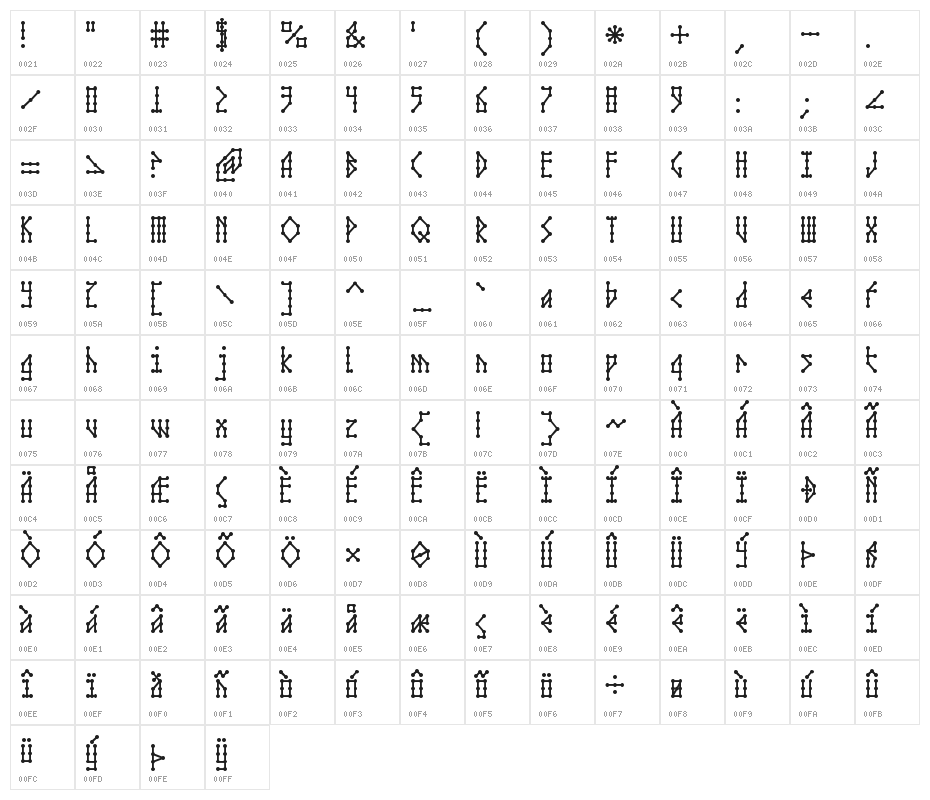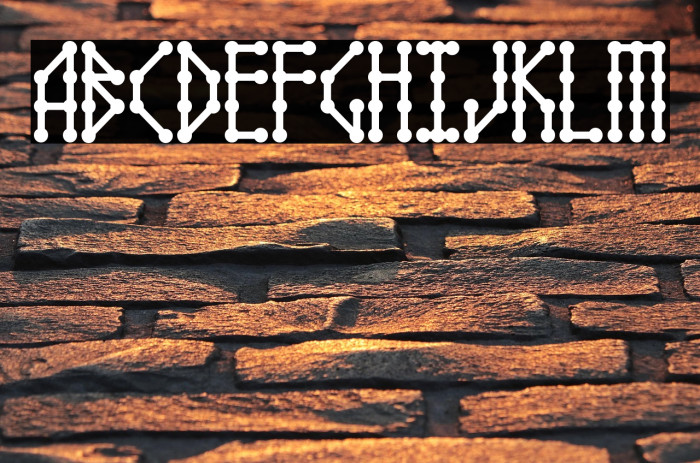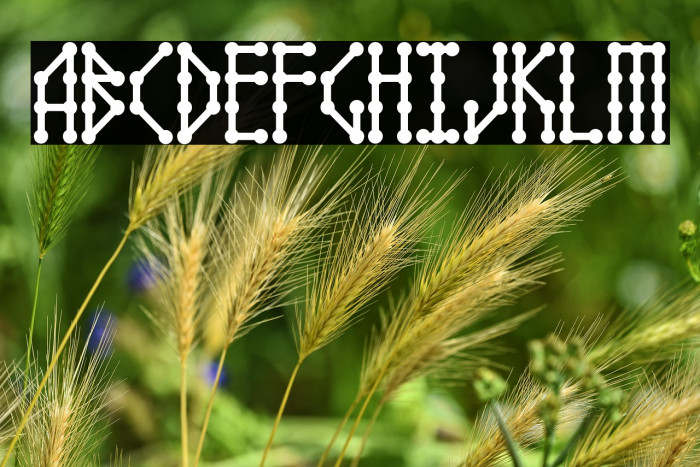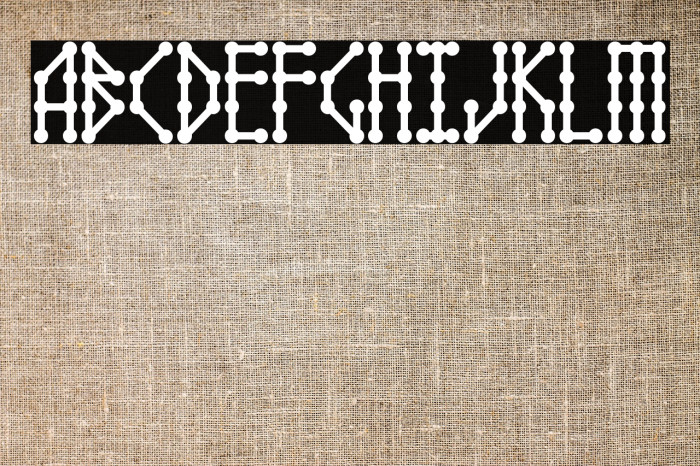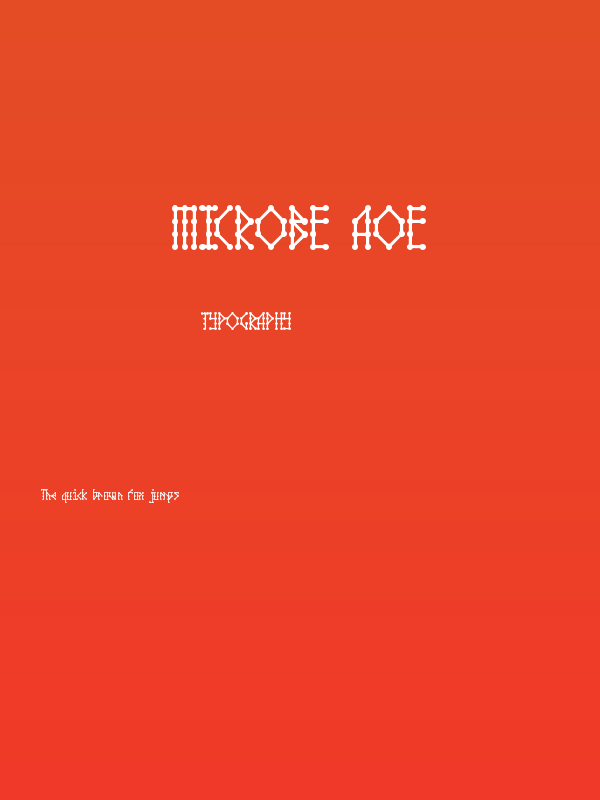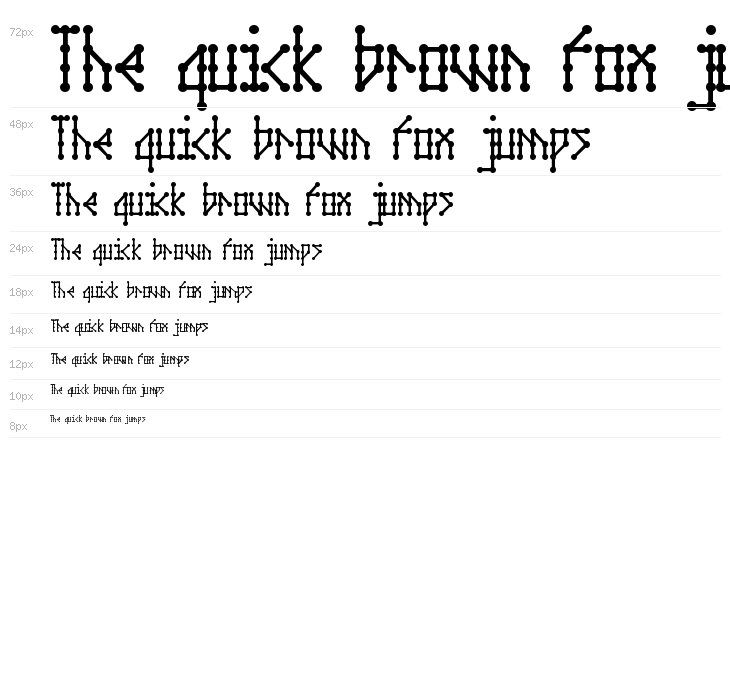
Microbe AOE Font
Microbe AOE Description
This font features a unique, geometric design composed of interconnected dots and lines, creating a futuristic and digital aesthetic. Each character is constructed with a series of bold, circular nodes connected by straight lines, giving it a distinct, technical appearance. The uppercase and lowercase letters maintain a consistent style, with the lowercase being slightly smaller in scale. Numbers and special characters follow the same design principles, ensuring uniformity across the character set. The font's structure is reminiscent of circuit board patterns, making it ideal for tech-related projects.
| Proposed Projects | Ideal for tech branding, digital art, sci-fi themed projects, and modern graphic design. |